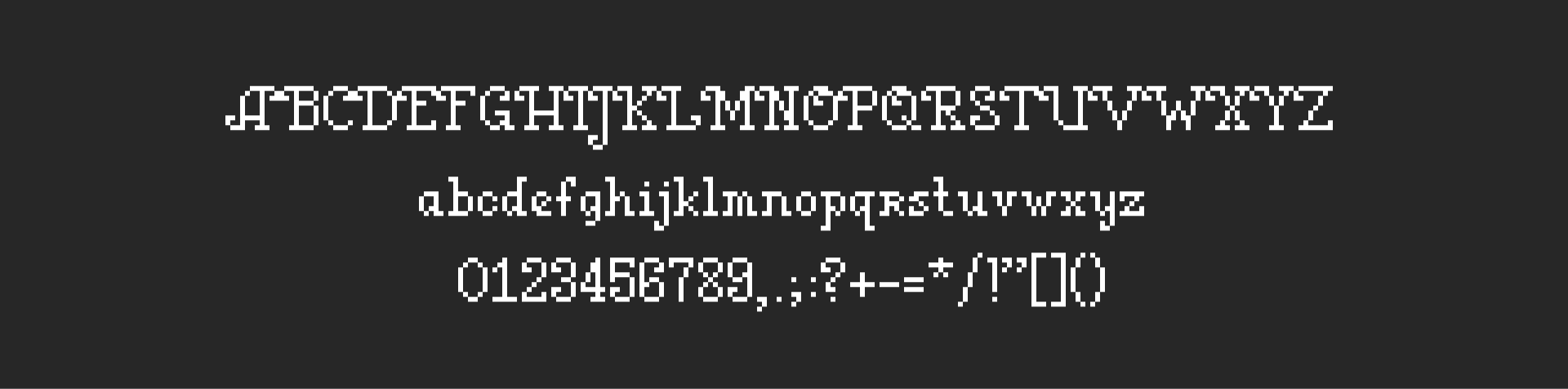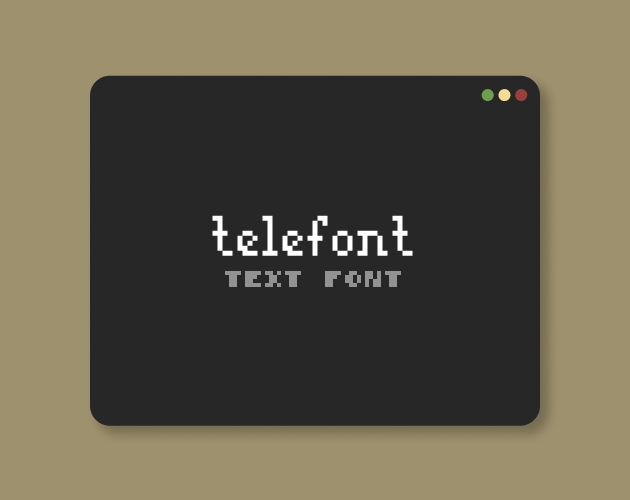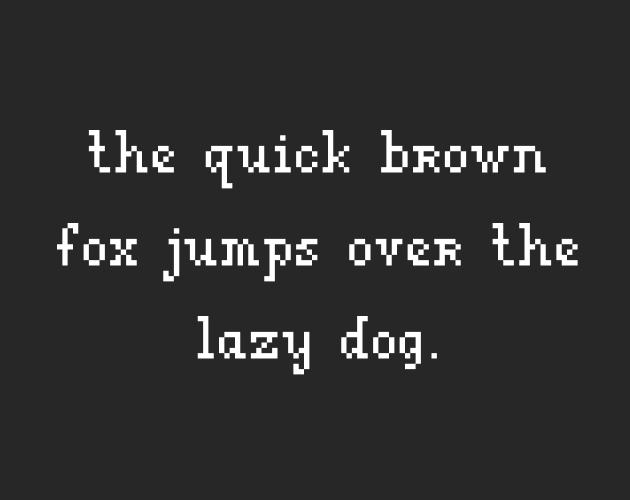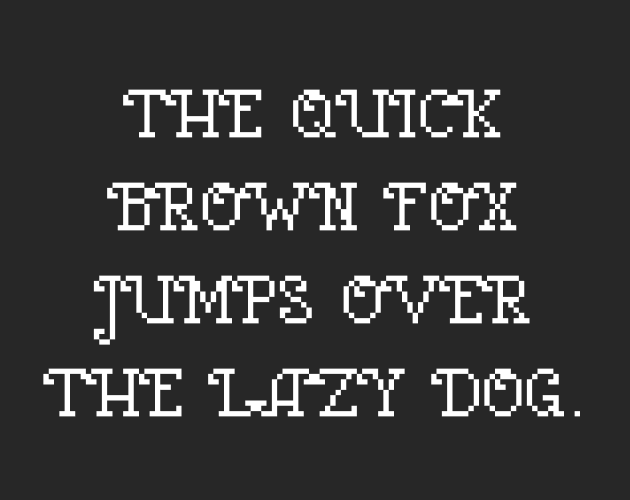
Pixel Font - TELEFONT
TELEFONT is a 9px tall pixel font!
Full Character Set:
ABCDEFGHIJKLMNOPQRSTUVWXYZ
abcdefghijklmnopqrstuvwxyz
0123456789,.;:?+-=*/!"[]()
A font by INDIEkit.